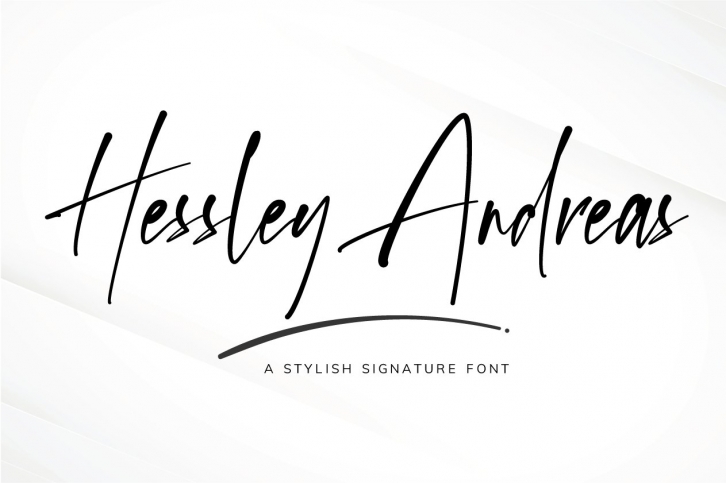
Hessley Andreas Font Download
Hessley Andreas is a gorgeous font that was realeased on March 25, 2020. The font can be used in many style contexts and design environments. Perfect for invitations, magazines, websites, logos, and more! It was designed by Silverdav and the file size is 13.6 MB. Thanks for checking out this font!